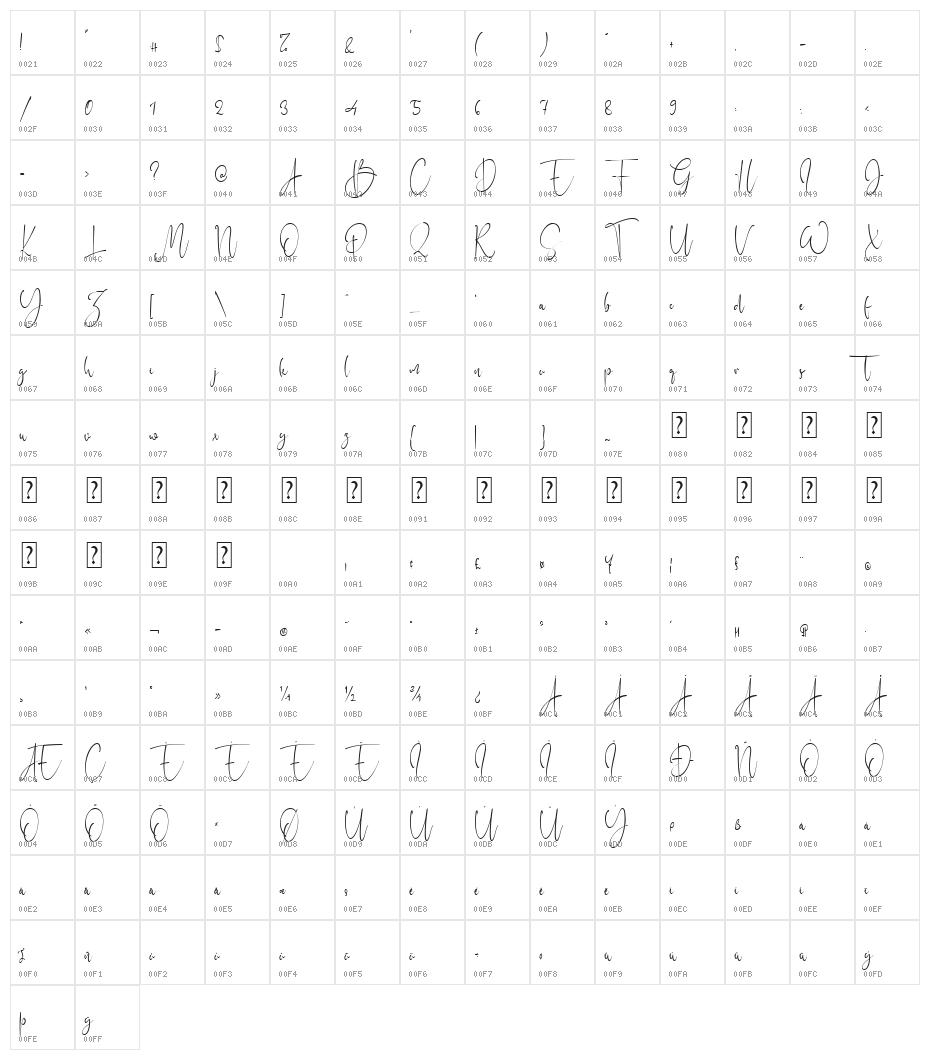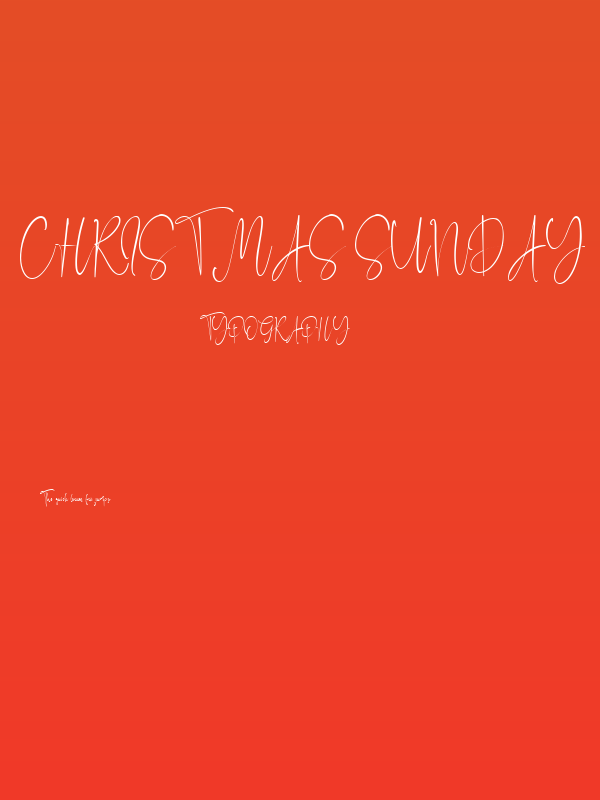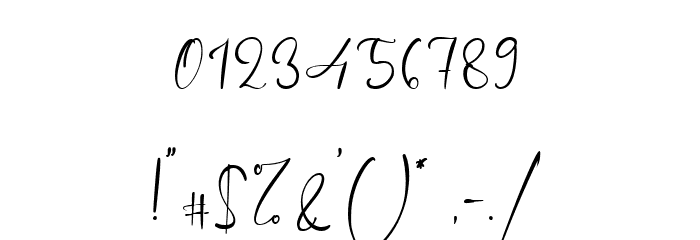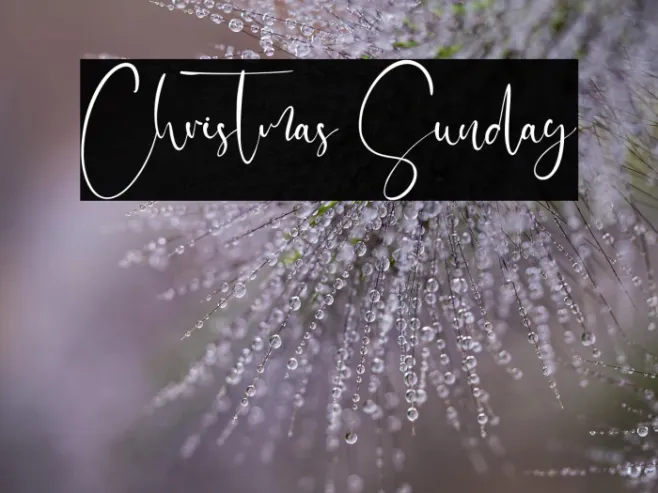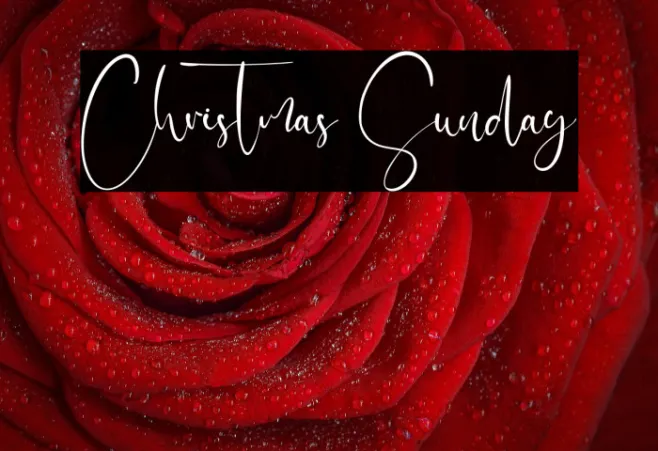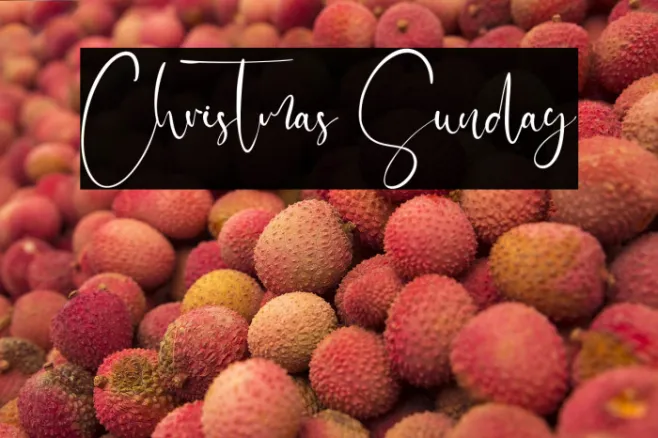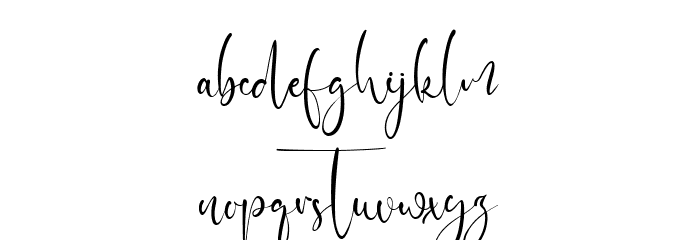
Christmas Sunday Font
Christmas Sunday Description
This font exudes a whimsical and elegant charm, characterized by its flowing, cursive script style. The letters are interconnected with smooth, sweeping lines that give it a sense of movement and grace. The uppercase characters are tall and slender, with unique flourishes that add a decorative touch. The lowercase letters maintain a consistent style, with loops and curves that enhance its handwritten appearance. Numbers and special characters are designed to match the overall aesthetic, ensuring a cohesive look. This font is perfect for projects that require a personal, artistic touch, such as invitations, greeting cards, or branding materials.